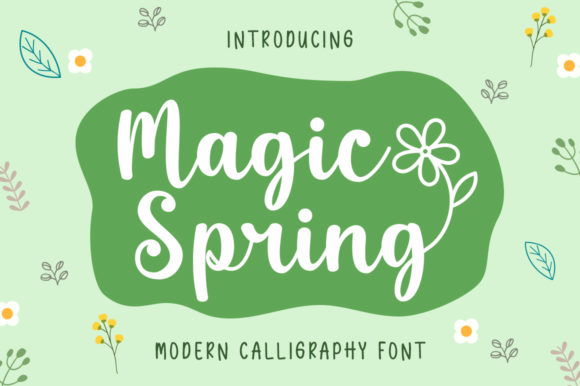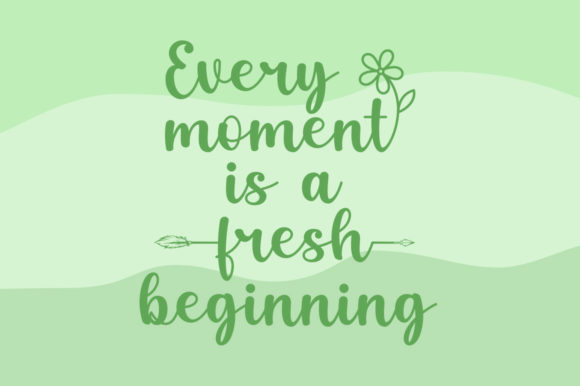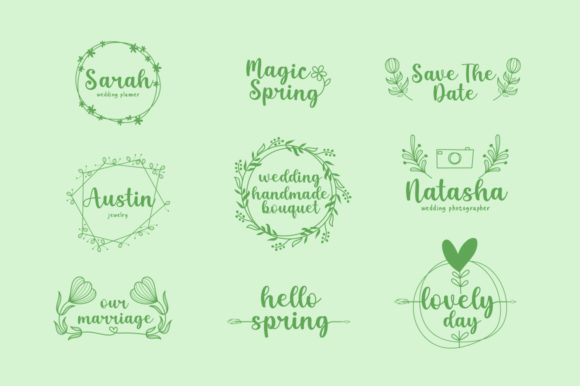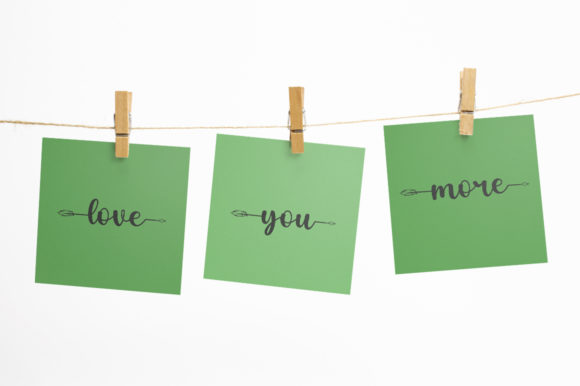
About Magic Spring Font
Magic Spring is an elegant handwritten font. This font has a lovely touch of character, perfect for a wide variety of designs. Add it to your most creative ideas and make stunning designs!